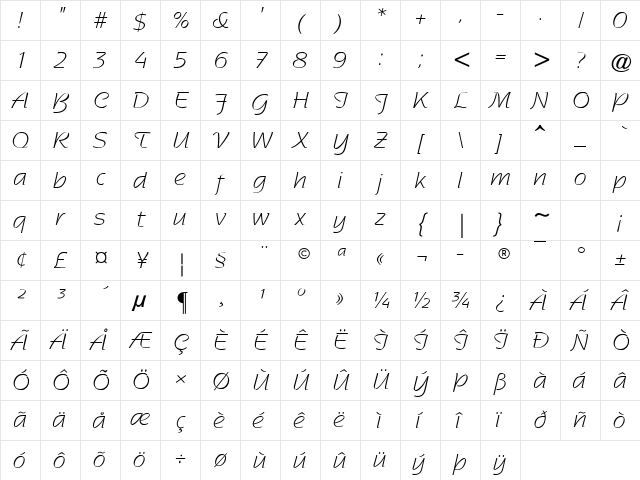
Sentimental Script Light SSi Regular
Design Context for Sentimental Script Light SSi
Sentimental Script Light SSi flows with the natural rhythm of handwritten lettering, making it ideal for designs that call for warmth and personal expression. Its slender proportions lend an understated elegance to any composition.
Font Pairing: Combine Sentimental Script Light SSi with a simple geometric sans for maximum contrast - the tension between flowing curves and clean structure is a classic typographic pairing.
Pro Tip: Use Sentimental Script Light SSi for short runs of text - names, titles, or taglines. Extended body copy in script faces tires the eye quickly.